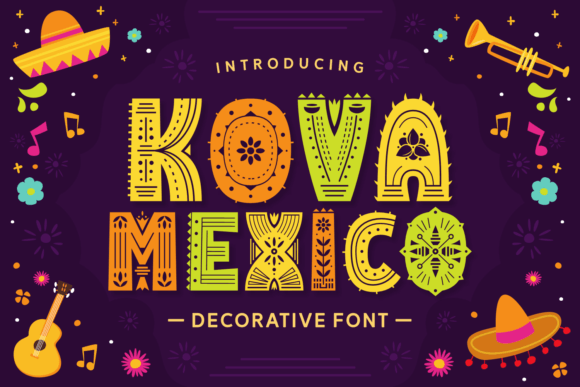
Introducing Kova Mexico Font: A Vibrant Celebration of Mexican Culture!
Are you ready to infuse your designs with a burst of color, energy, and pure Mexican spirit? Look no further than Kova Mexico Font! Created by the talented artist Dito from 7NTypes, this decorative font is designed to captivate and inspire.
Transport yourself to the heart of Mexico with Kova Mexico Font's lively and playful design. Every letter is adorned with intricate patterns and designs, reminiscent of the vibrant textiles found in traditional Mexican art. From the iconic cacti to the charming sombreros, and fiery chili peppers, this font embodies the festive aura of Mexico.
With Kova Mexico Font, the possibilities are endless. Whether you're working on a project related to Mexico, Latin America, or simply seeking to inject a touch of joy into your designs, this font is your perfect companion. Its unique and eye-catching style will effortlessly elevate your artwork, making it stand out among the rest.
Imagine the impact of using Kova Mexico Font on your website, social media graphics, or even branding materials. Your audience won't be able to resist its irresistible charm! Spark their curiosity, invoke their emotions, and leave a lasting impression with this font that speaks volumes about your creativity and attention to detail.
But Kova Mexico Font isn't just about aesthetics – it's also incredibly versatile. Whether you're designing a logo, a poster, an invitation, or any other project, this font adapts effortlessly to any context. It seamlessly combines style with legibility, ensuring that your message comes across loud and clear.
Here's the best part: Kova Mexico Font is not just visually stunning, it's also user-friendly. Its easy-to-use features allow you to effortlessly navigate through the vast selection of letters and symbols. Spend less time struggling with complicated design software and more time bringing your vision to life.